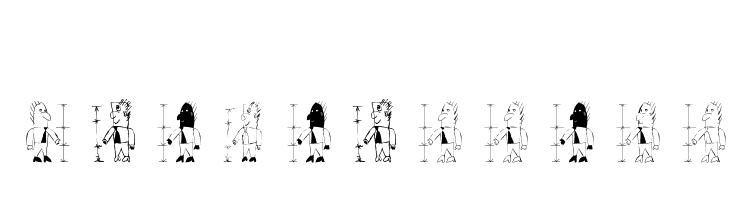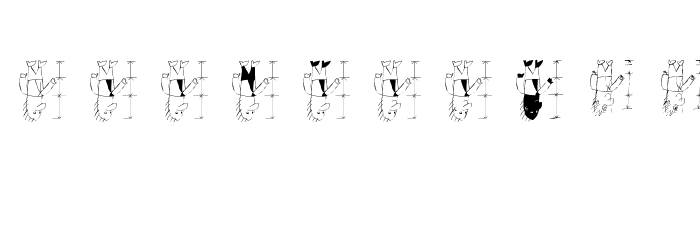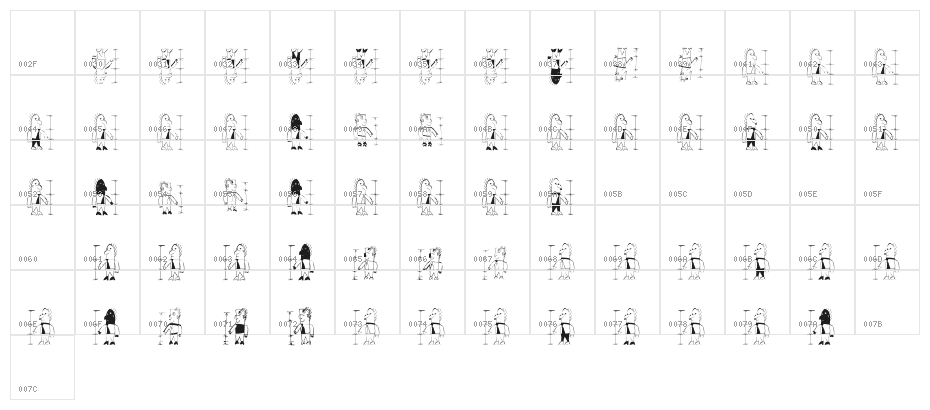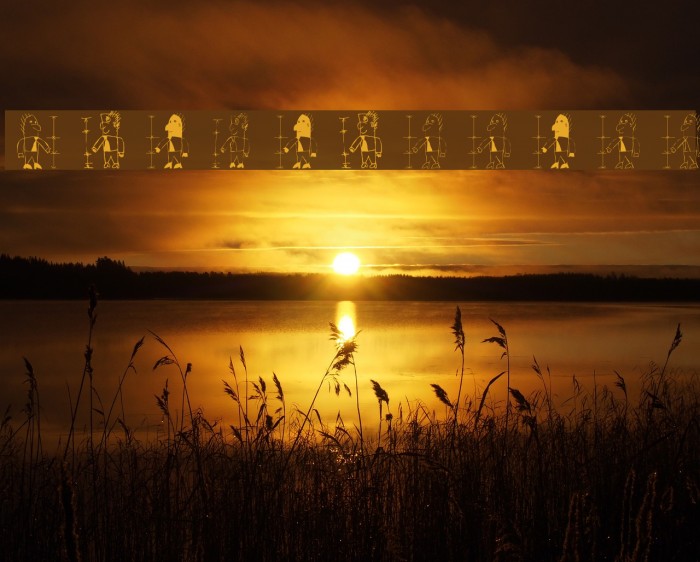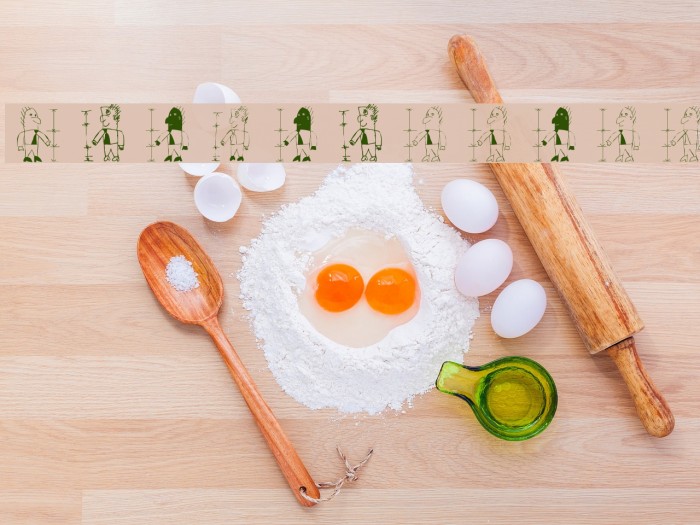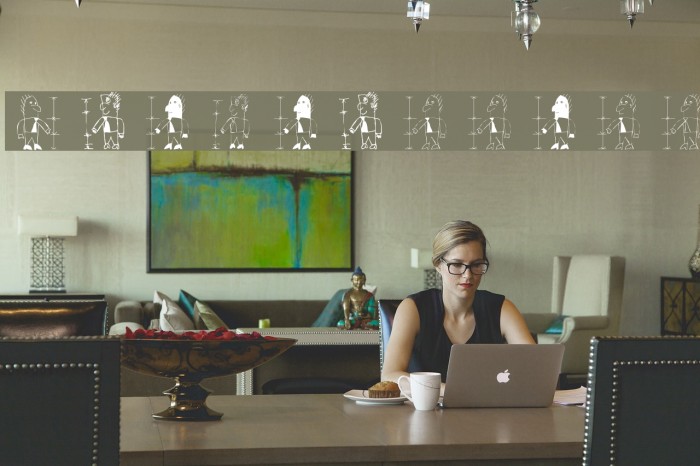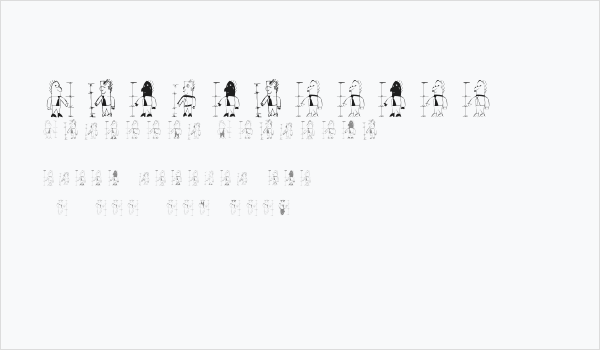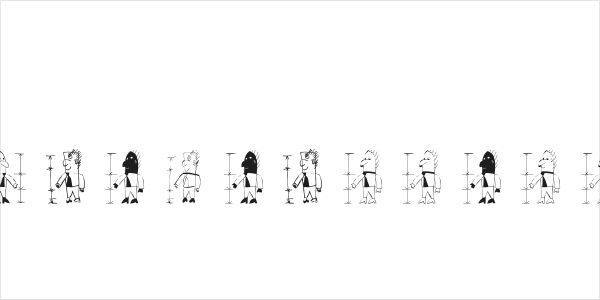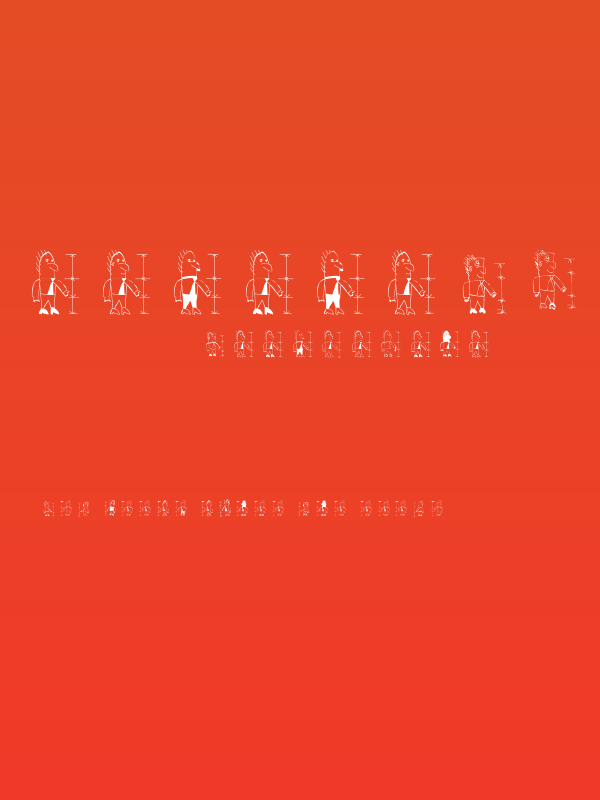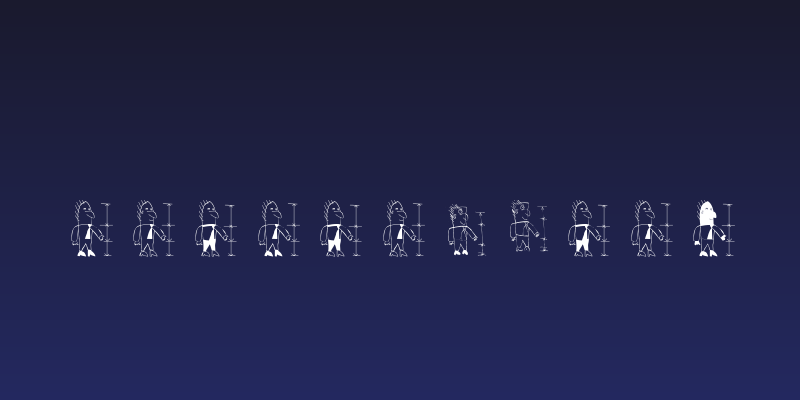
Proportions Font
Proportions Description
This is not a valid font. The image contains a series of abstract or artistic representations rather than recognizable alphanumeric characters. Each character appears to be a stylized figure, possibly intended as a decorative or illustrative element rather than a functional typeface. The design elements include varying shapes and forms that do not correspond to standard letters or numbers, making it unsuitable for typical text-based applications.
| Overall Style | Artistic, Abstract |
| Use Case | Decorative elements, Illustrations |
| Proposed Projects | This design could be used for artistic projects, illustrations, or as a decorative element in graphic design. |